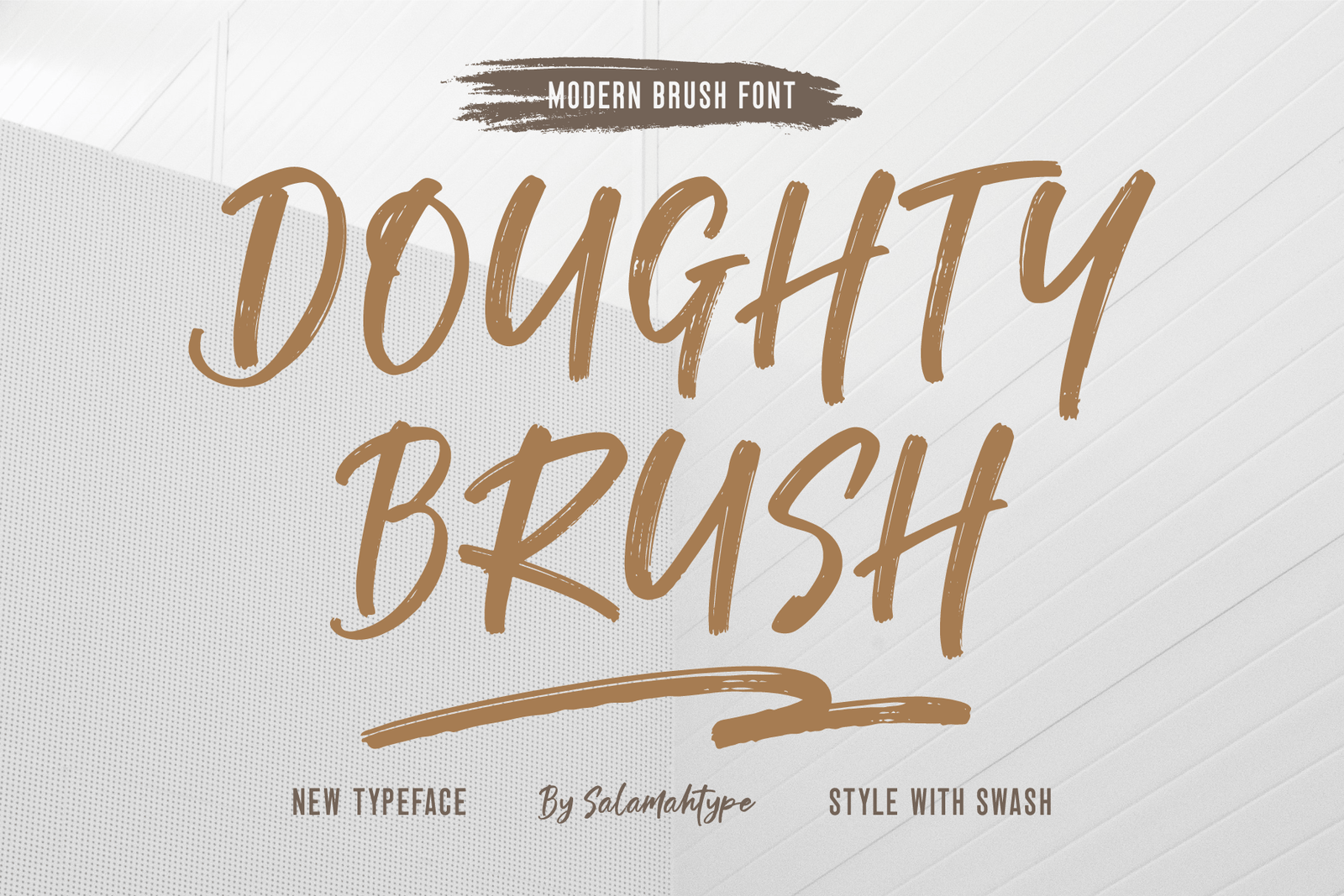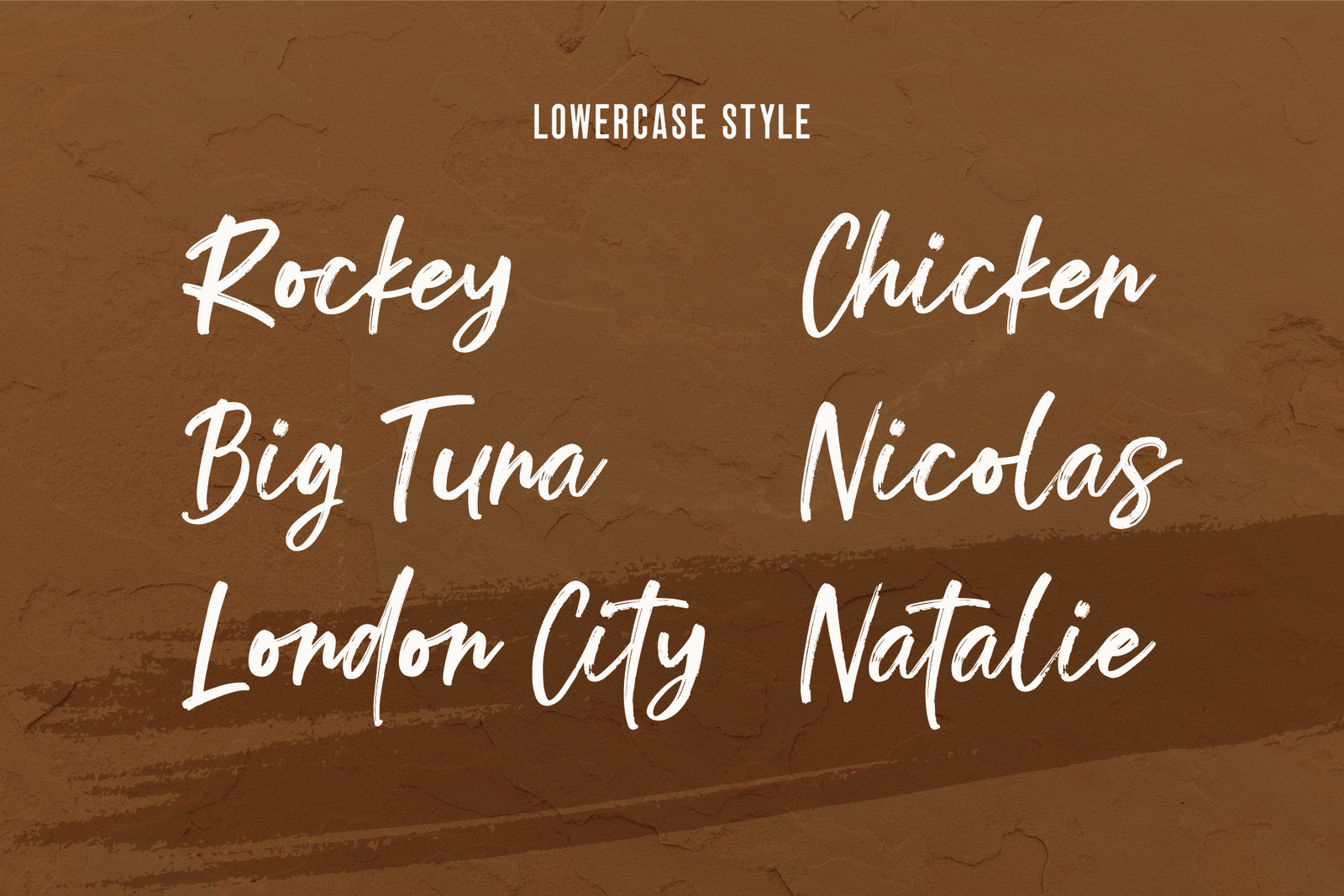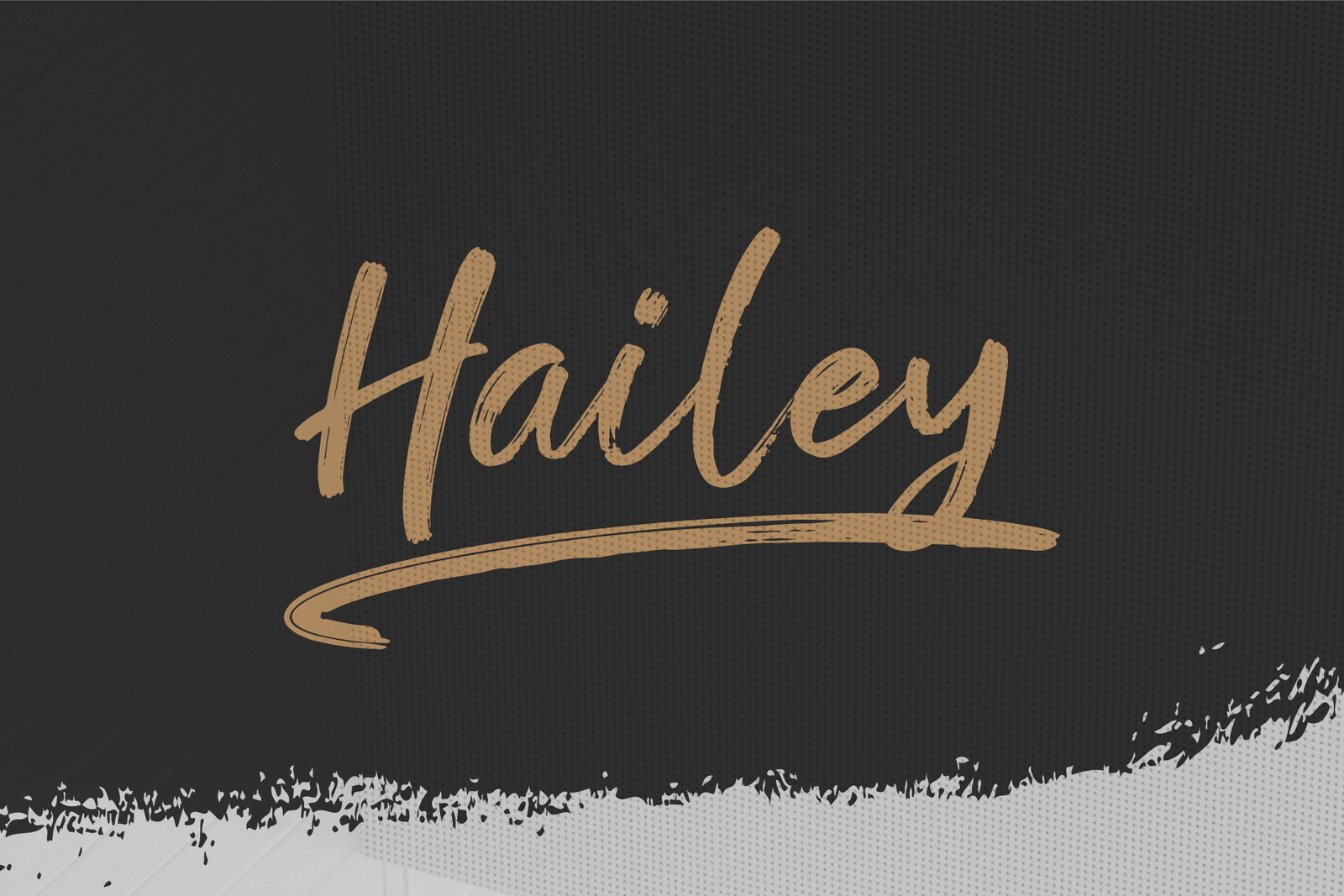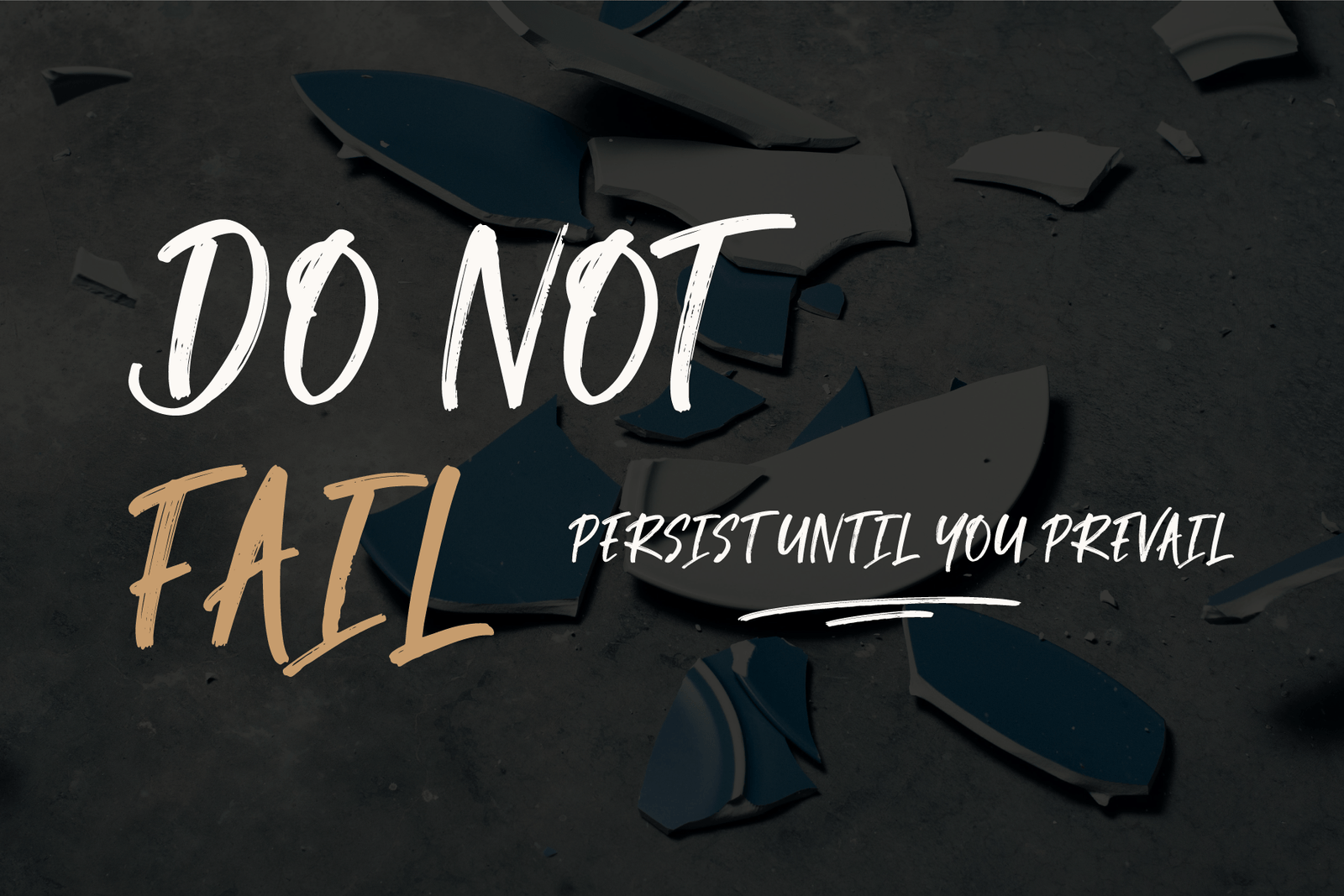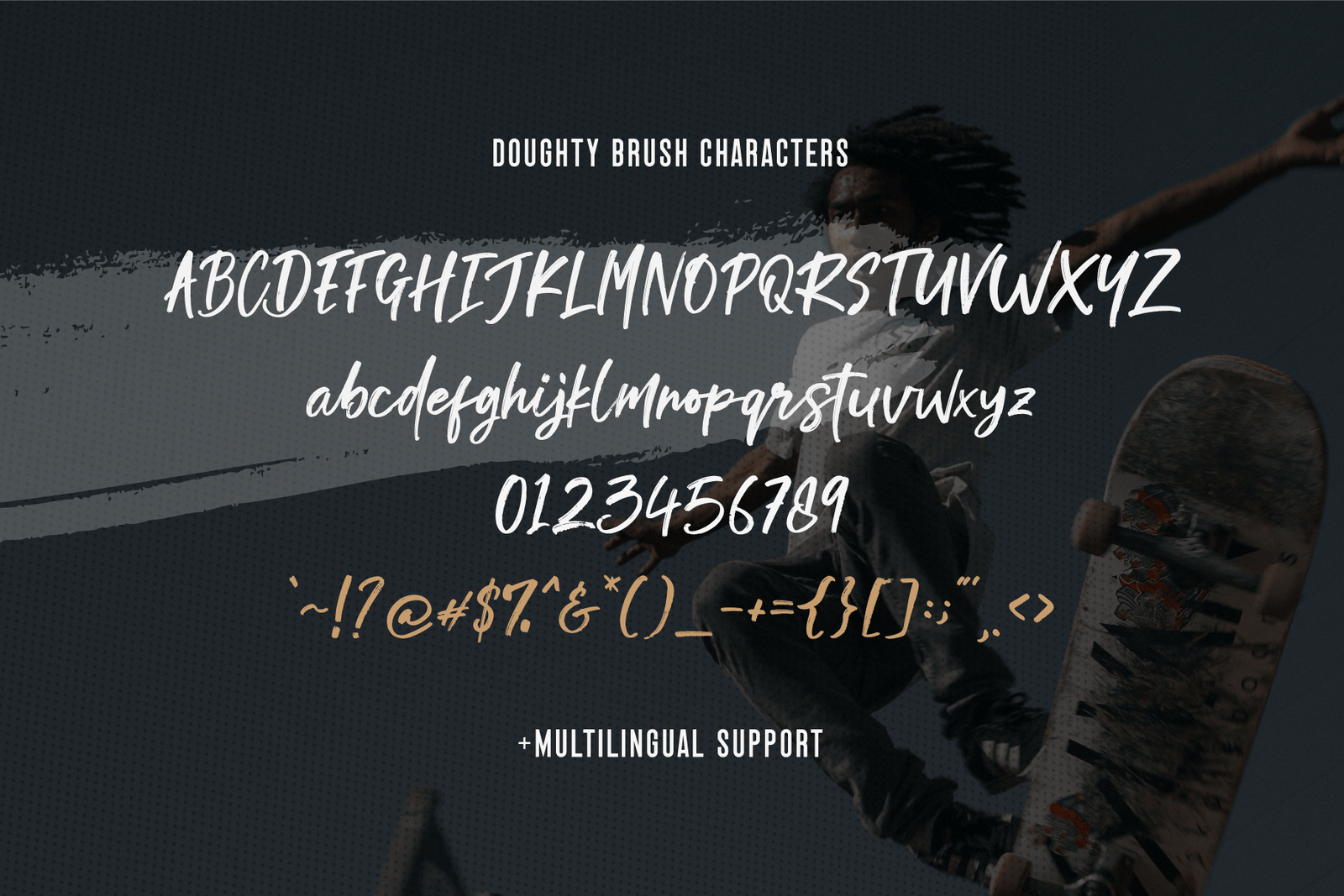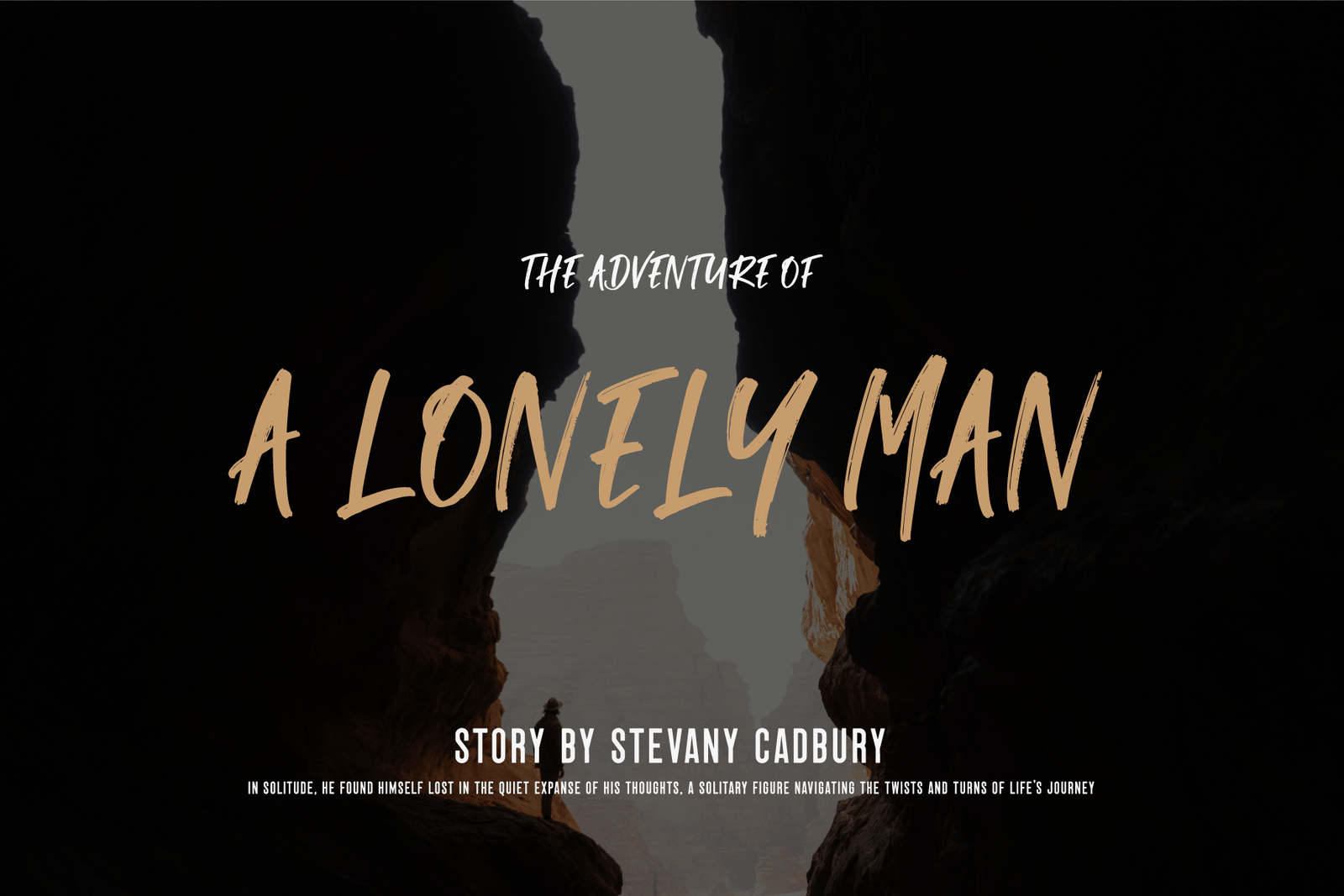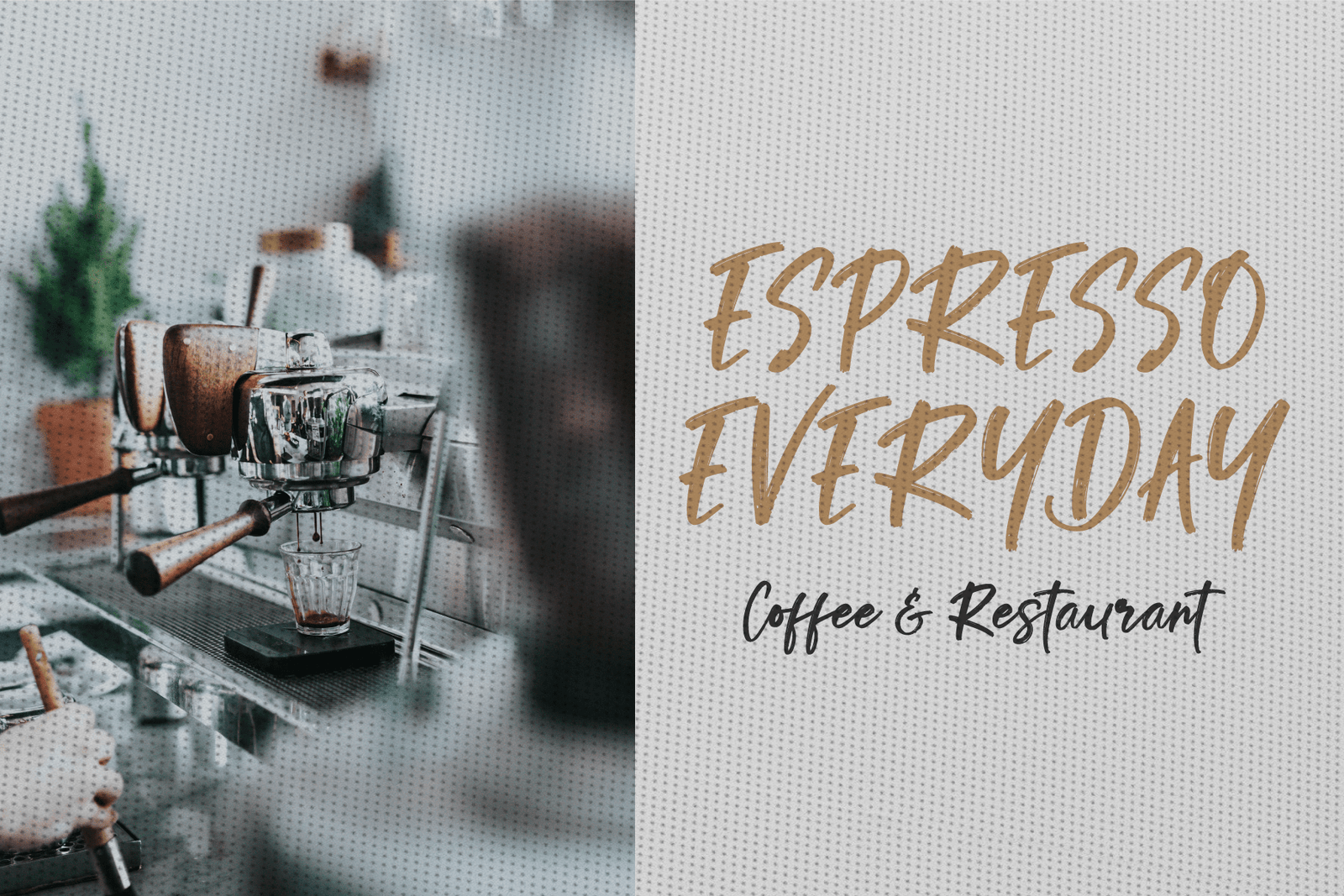
DOUGHTY BRUSH
SWASHES
“DOUGHTY BRUSH” a modern brush typeface that is ideal for a variety of logo applications, especially for branding projects. DOUGHTY BRUSH’s natural semi-script design skillfully combines uppercase and lowercase characters, resulting in a delightful harmony of authenticity and beauty. The brush-style design and organic, handcrafted feel make it ideal for cool design project visuals. Its natural, brush-style design seamlessly blends upper and lower case letters. With multilingual support, it is great for global brands.
- Uppercase and lowercase
- Numbers and punctuation
- Swashes
- Multilingual